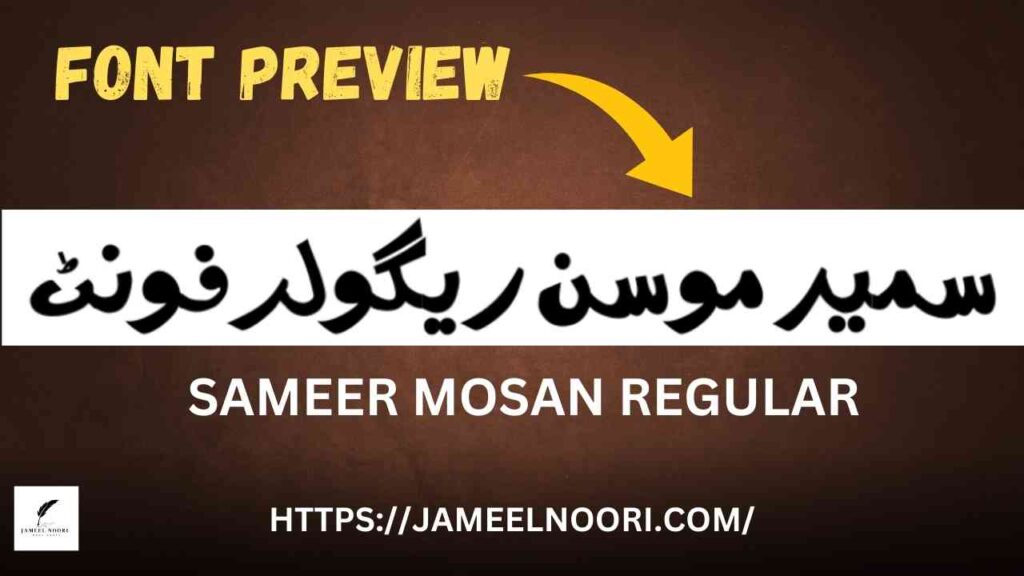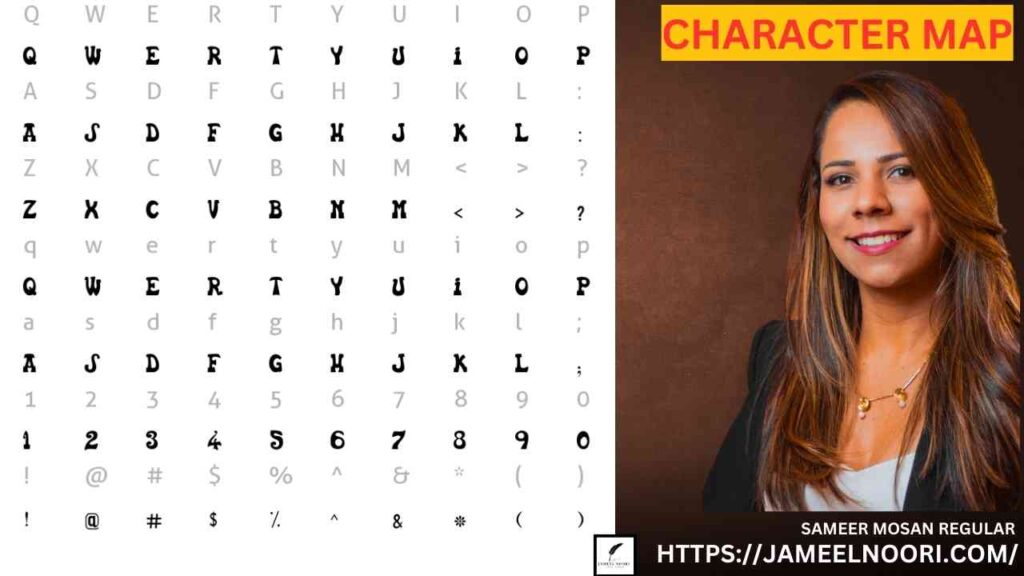
Urdu Fonts Download – Sameer Mosan Regular by Jameel Noori
If you’re looking for a beautiful and highly readable Urdu font, Sameer Mosan Regular by Jameel Noori is an excellent choice.. It is widely used in Urdu digital designs, publications, and educational content due to its elegance and clear letterforms..
The font provides a balance between modern styling and traditional calligraphy, making it perfect for use in Islamic texts, poetry, and educational content..